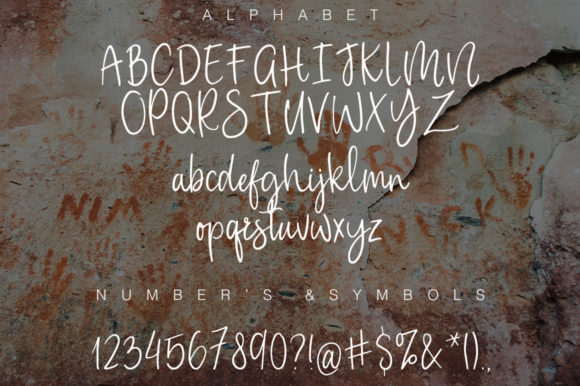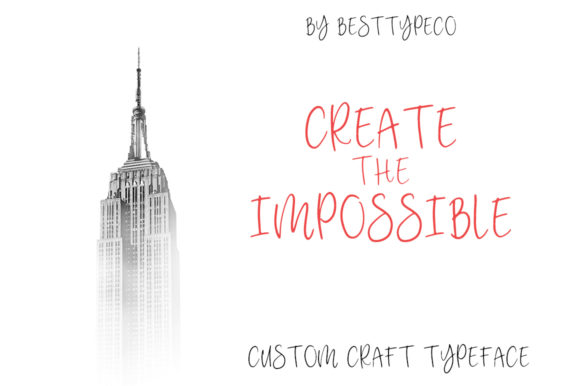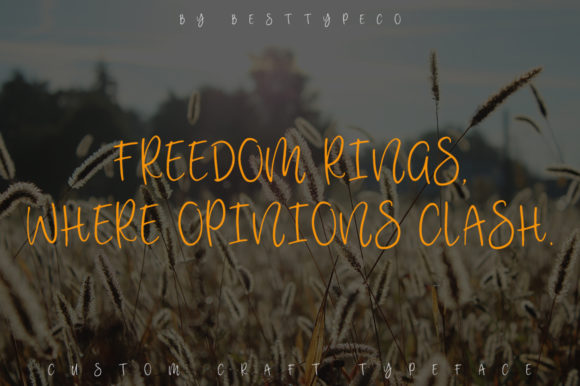
Introduction to Custom Craft Font
Custom Craft is a great handwritten font.
| 👤 Author | BennyDesigns |
It maintains its classy calligraphic influences while feeling contemporary and fresh It is perfect for greeting cards, branding materials, business cards, quotes, posters, websites, merchandise, packaging, invites, greetings and more.
Key Features of Custom Craft Font
Why Choose Custom Craft Font?
Custom Craft Font offers exceptional quality and versatility, making it a valuable addition to your design toolkit. Whether you’re creating for personal projects or commercial use, Custom Craft Font delivers professional results.